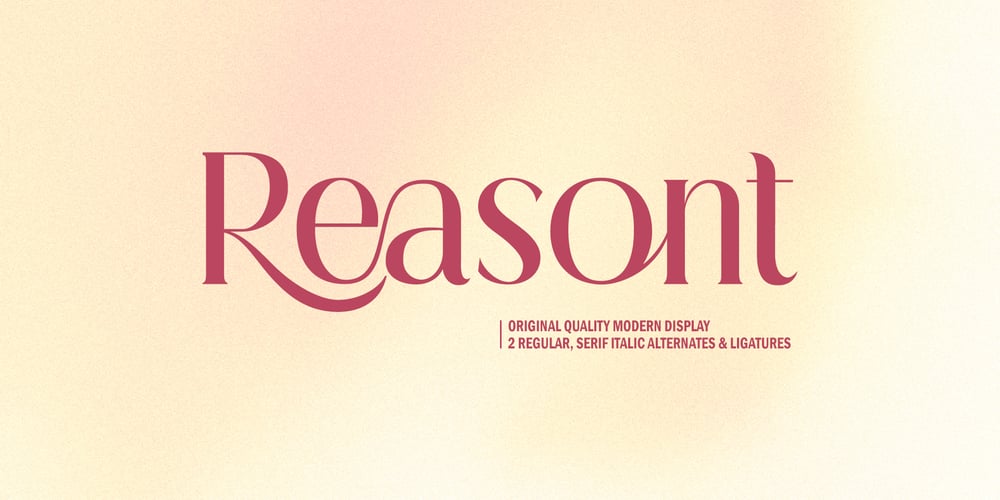
Reasont Font Family was designed by Bustami Harun and published by Genesislab. Reasont contains 2 styles and family package options. Reasont is to be perfect for logos, branding, greetings, social media themes and wedding invitation designs. It is also a great typeface for titles due to its smooth design and eye-catching appearance.Available Fonts:. Multilingual.If you have any questions don’t hesitate to contact me!Thank you,